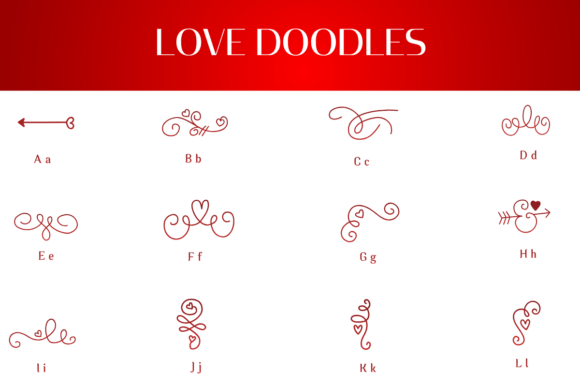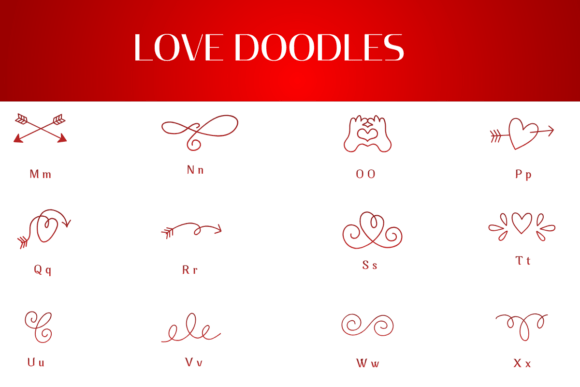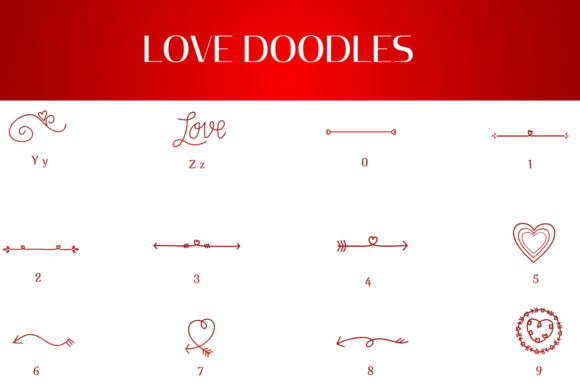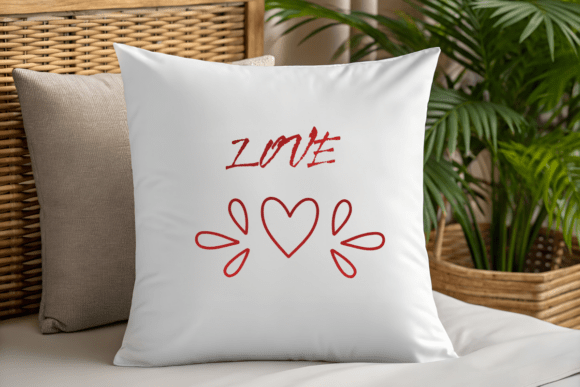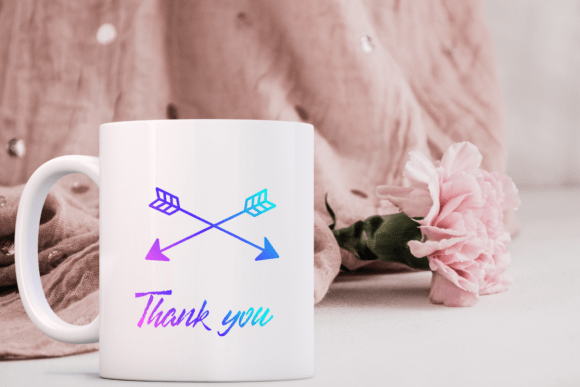
Love Doodles Font
💖 Love Doodles Dingbats Font
Express heartfelt emotions and add charming decorative flair with Love Doodles, a delightful dingbats font packed with a variety of hand-drawn, romantic line art elements.
This specialty typeface replaces standard characters with a beautiful collection of swirls, arrows, hearts, dividers, and decorative flourishes, all rendered in a clean, consistent, thin-line doodle style. The entire collection exudes a lighthearted, intimate, and loving aesthetic.
Love Doodles is an essential resource for instantly enhancing invitations and crafting special messages.